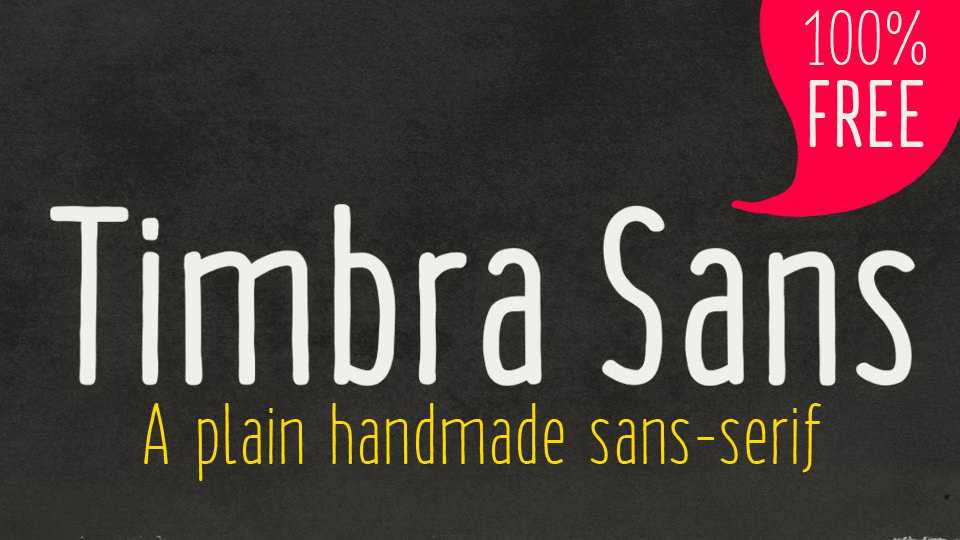
Download Timbra Sans font family, a handmade condensed sans serif typeface in two weights. Timbra Sans is great for everyday design, crafts, social media, apparel and much more.